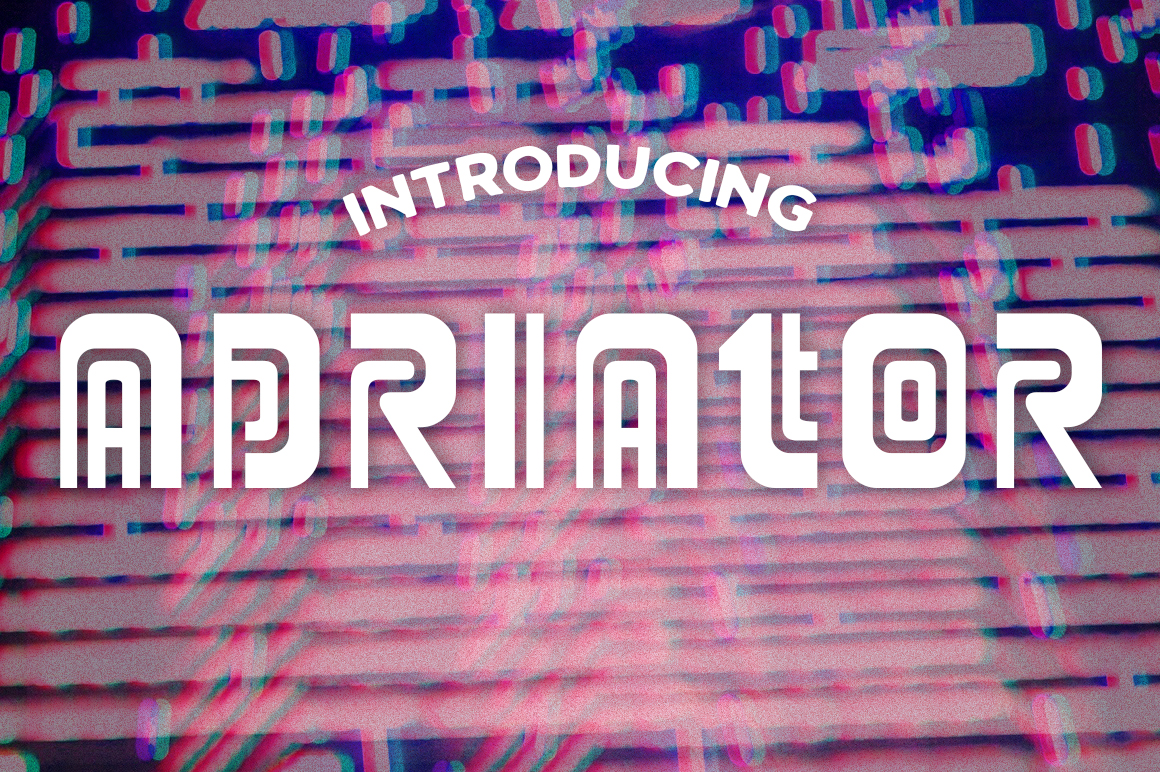
Adriator
About Adriator Font
Inspired by an old radiator, the Adriator is both glyphic and bizarre. This funky and glitchy font is perfect for retro designs, and is offered as a free font from Typodermic.